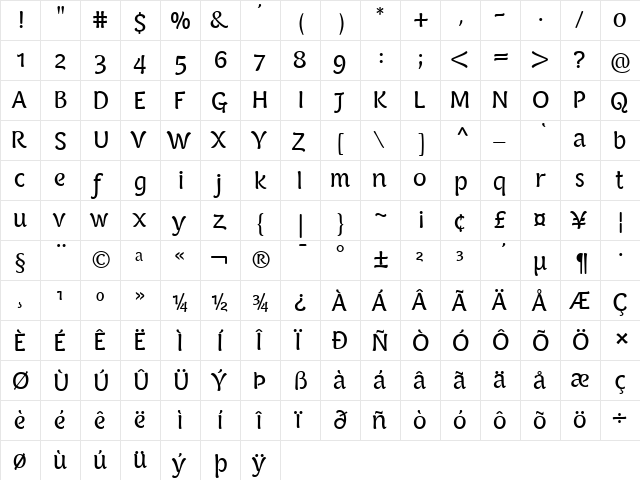
PF Armonia Regular
| Foundry | Vangelis Karageorgos |
| Designer | Vangelis Karageorgos |
Design Context for PF Armonia Typeface
PF Armonia is a composed and adaptable typeface that performs quietly and consistently across a wide range of design contexts.